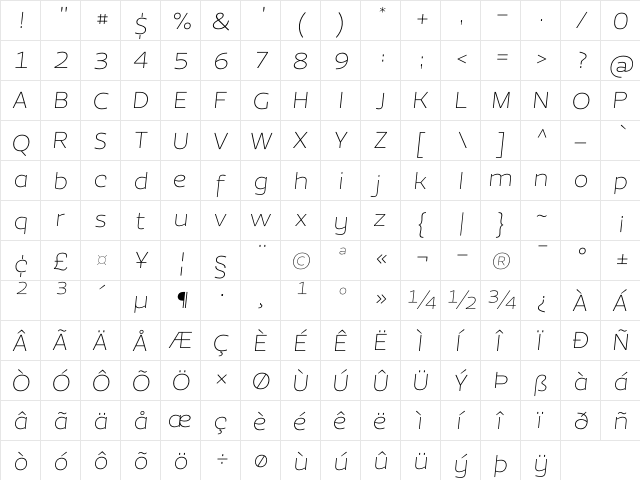
EzzoThinItalic Regular Font Preview
| Foundry | Dino dos Santos _DSType |
Design Context for EzzoThinItalic Typeface
EzzoThinItalic takes a measured approach to typography — its balanced proportions and neutral character make it a reliable workhorse for both digital and print work. The slanted form adds forward momentum and visual energy. Its slender proportions lend an understated elegance to any composition.
Pro Tip: Try EzzoThinItalic for annotation and caption copy alongside an upright companion — the contrast in angle creates a dynamic but ordered typographic system.